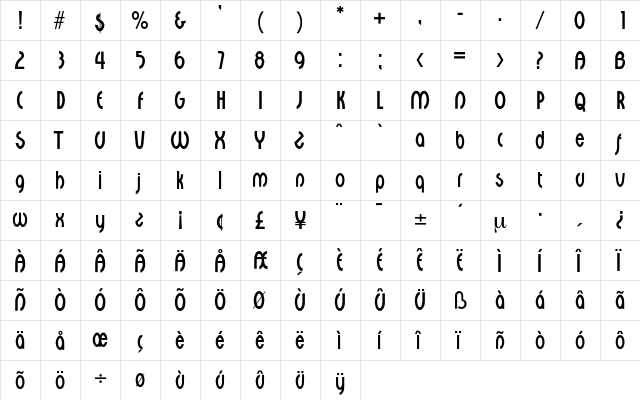
Melanie Regular
Design Context for Melanie Typeface
Melanie takes a measured approach to typography — its balanced proportions and neutral character make it a reliable workhorse for both digital and print work.